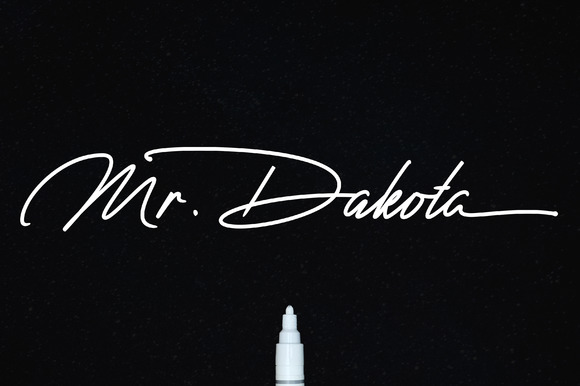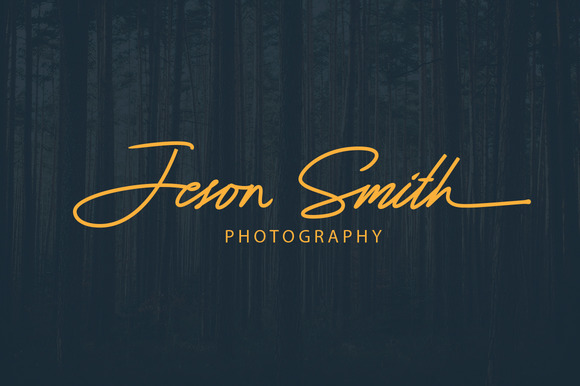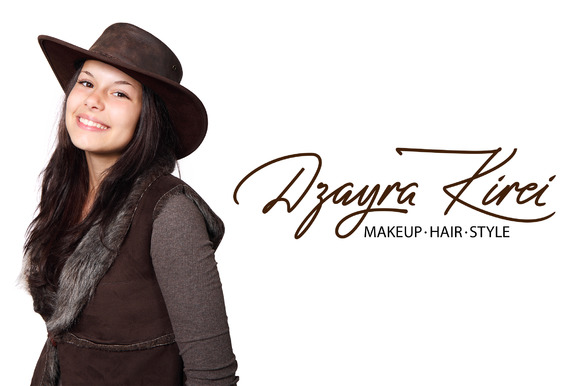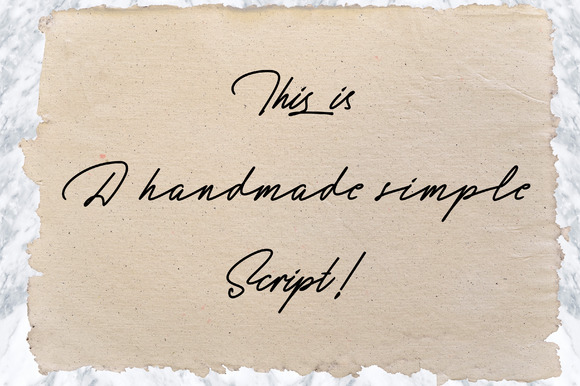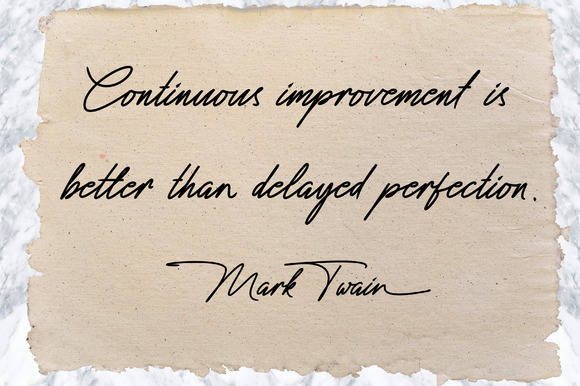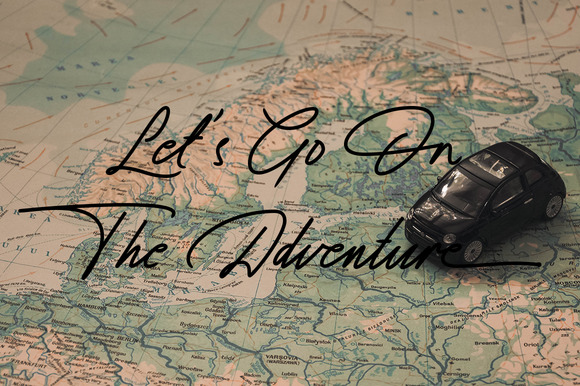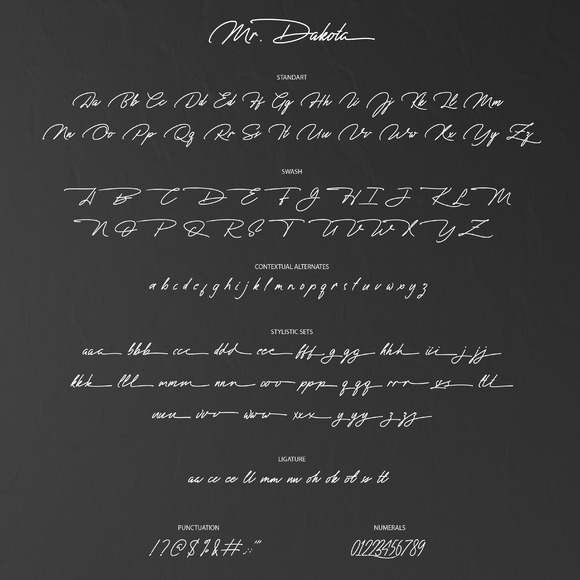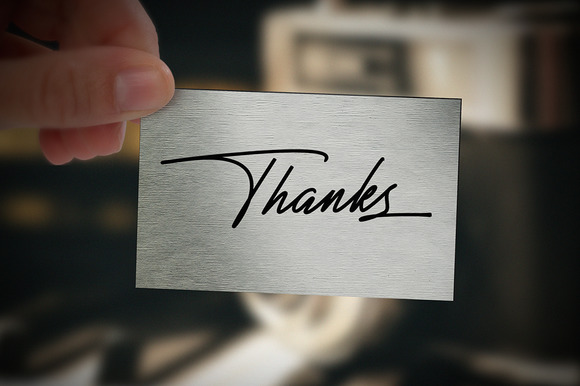
HomeScript FontsMr. Dakota Font Script Fonts Mr. Dakota Font FacebookXPinterestWhatsApp Mr. Dakota Font Poster 2 Mr. Dakota Font Poster 3 Mr. Dakota Font Poster 4 Mr. Dakota Font Poster 5 Mr. Dakota Font Poster 6 Mr. Dakota Font Poster 7 Mr. Dakota Font Poster 8 About Mr. Dakota Font Mr. Dakota script is a new fresh & modern script with a sweet calligraphy style and decorative characters. DOWNLOAD ON CREATIVE FABRICAThis font is sold and delivered by Creative Fabrica. Font Canyon may earn a commission if you buy through this link. People also explored Himalayar Font Translrations Font Wulandari Font Cute Tree Christmas Font American Scribe shintia Christmas Maroon Font Quite in Love Font October Halloween Font 392 0 TagsMr. Dakota Font Previous articleOrlando FontNext articleFlamboyan Font LEAVE A REPLY Cancel reply Comment: Please enter your comment! Name:* Please enter your name here Email:* You have entered an incorrect email address! Please enter your email address here Website: Save my name, email, and website in this browser for the next time I comment. Personal Use Free Aline Personal Use Free Read more about this font Fadhista Personal Use Free Read more about this font Messy Personal Use Free Read more about this font Arnprior Personal Use Free Read more about this font BLOG Elegant Wedding Invitation Fonts – Handwritten & Script Fonts Elegant Wedding Invitation Fonts Your wedding day is one of the most important moments of your life, and every detail matters—including your invitation design. Our... To increase your work productivity, choose the most readable fonts. Where to Buy American Fonts Online in 2024 Fonts That Capture the Spirit of New York City